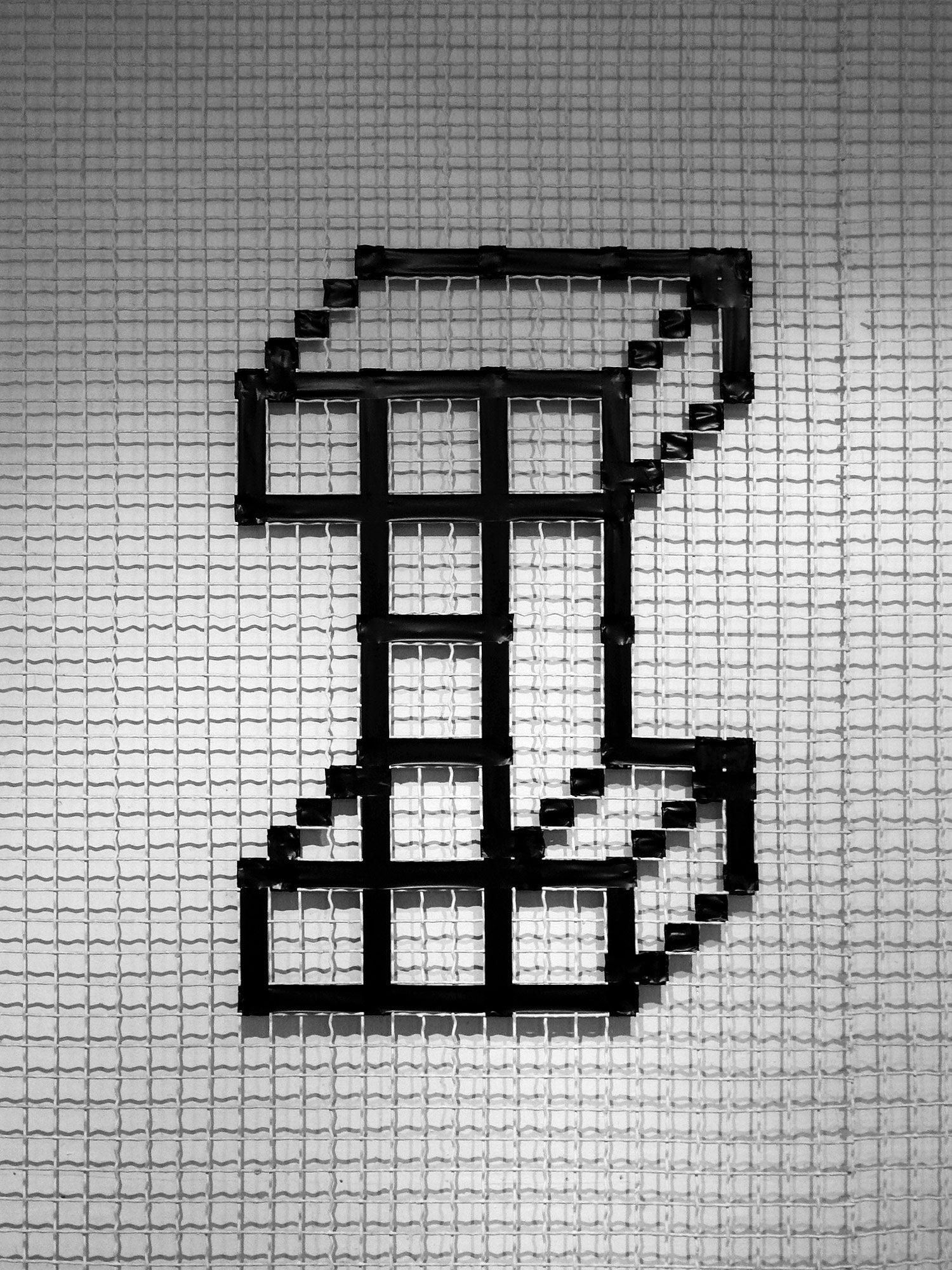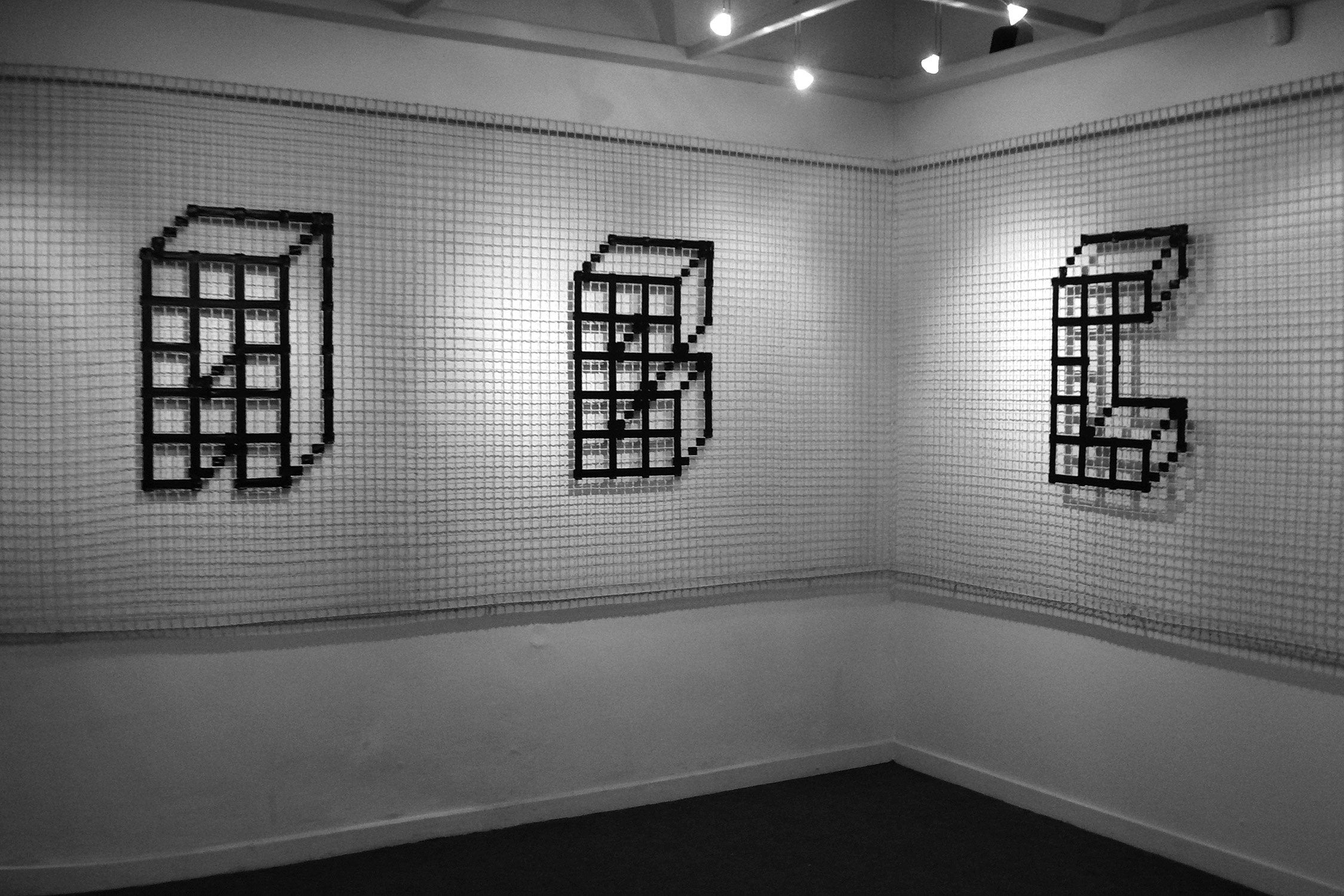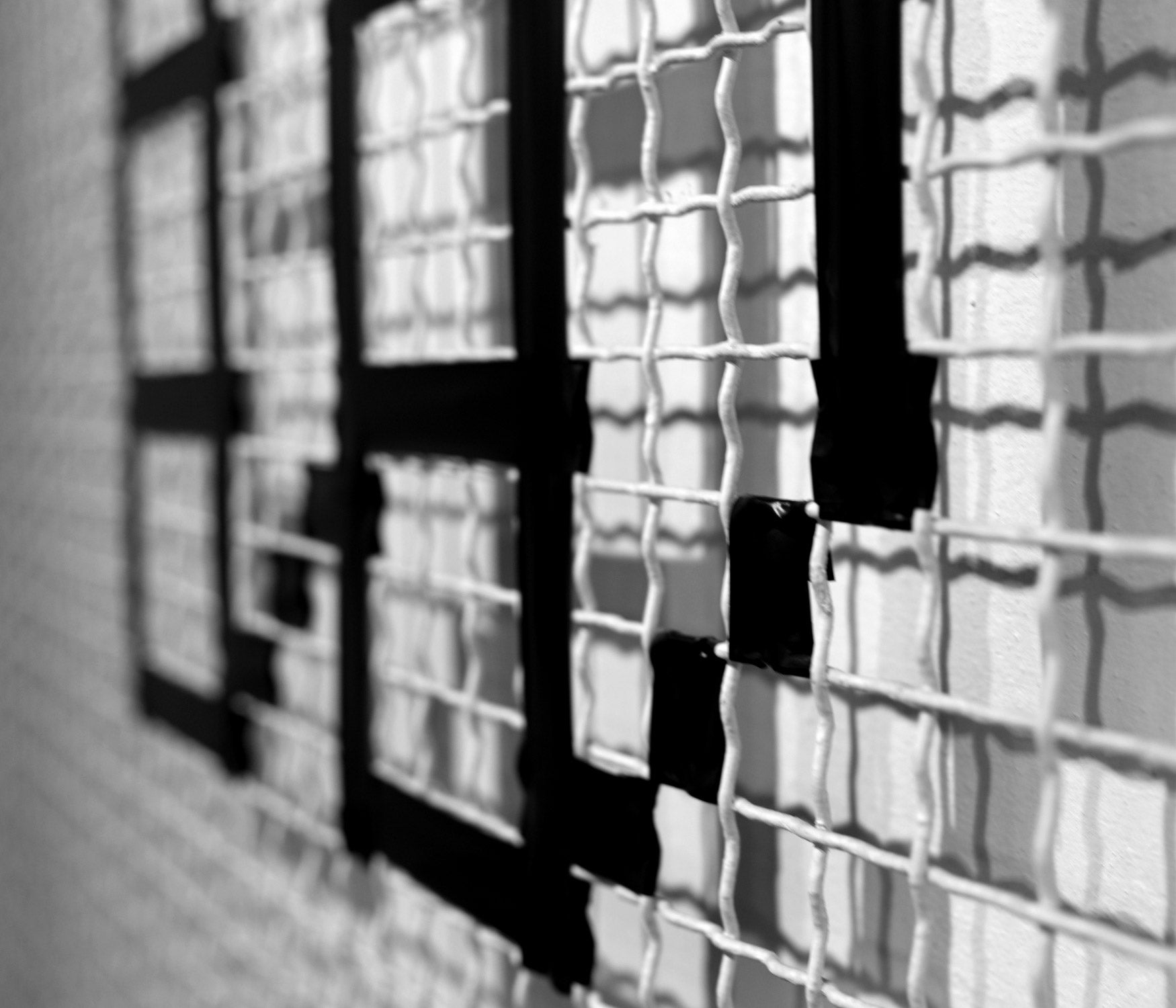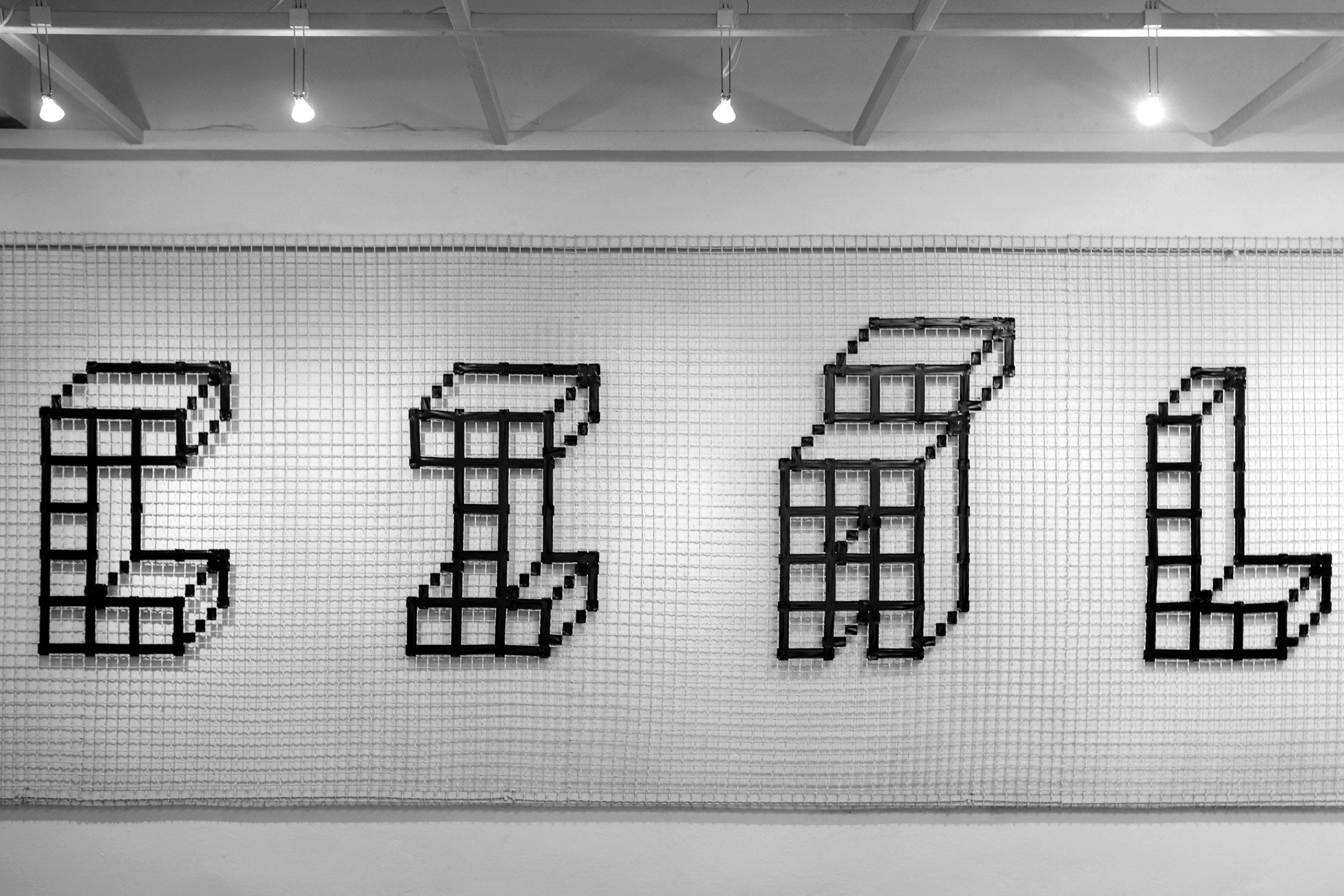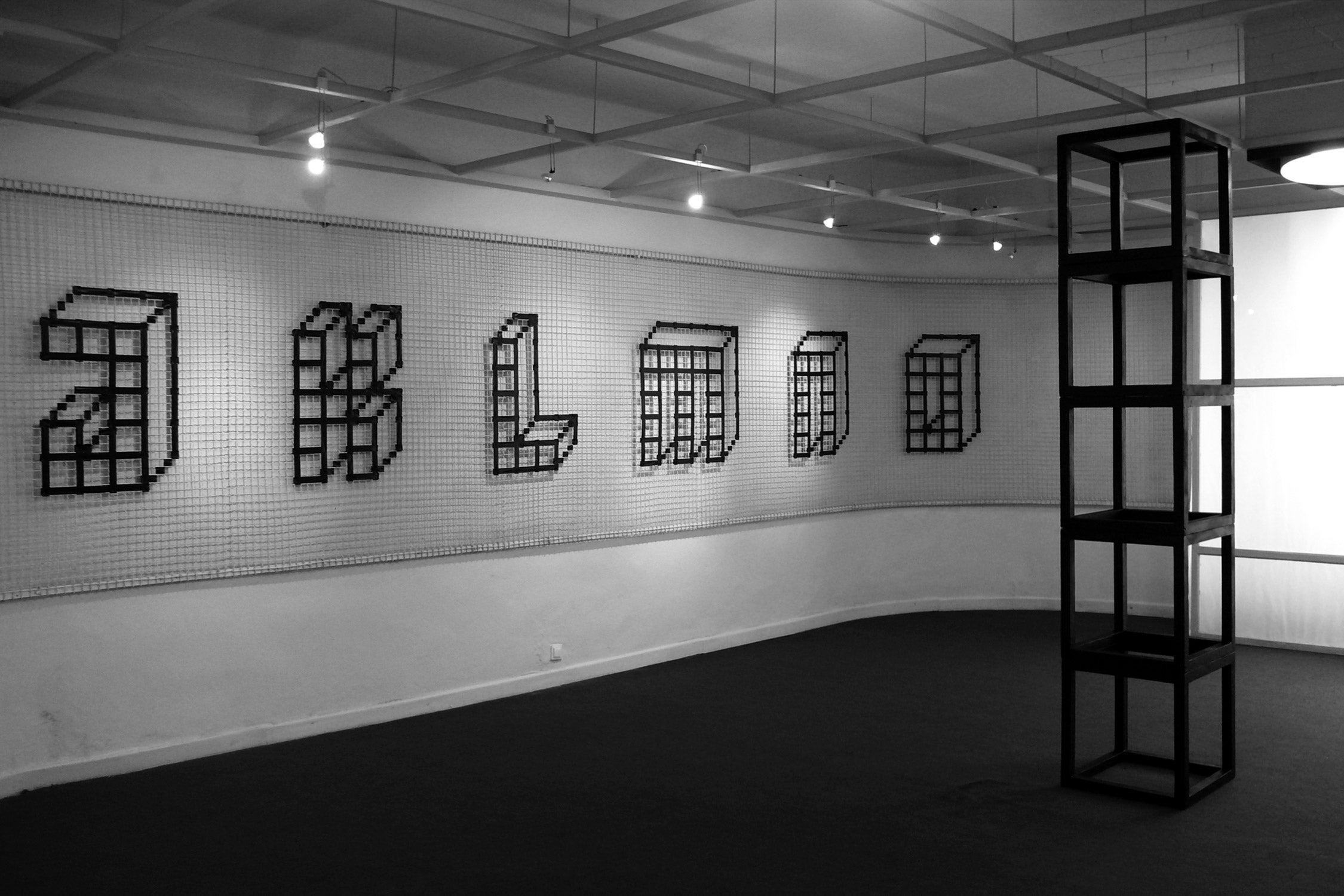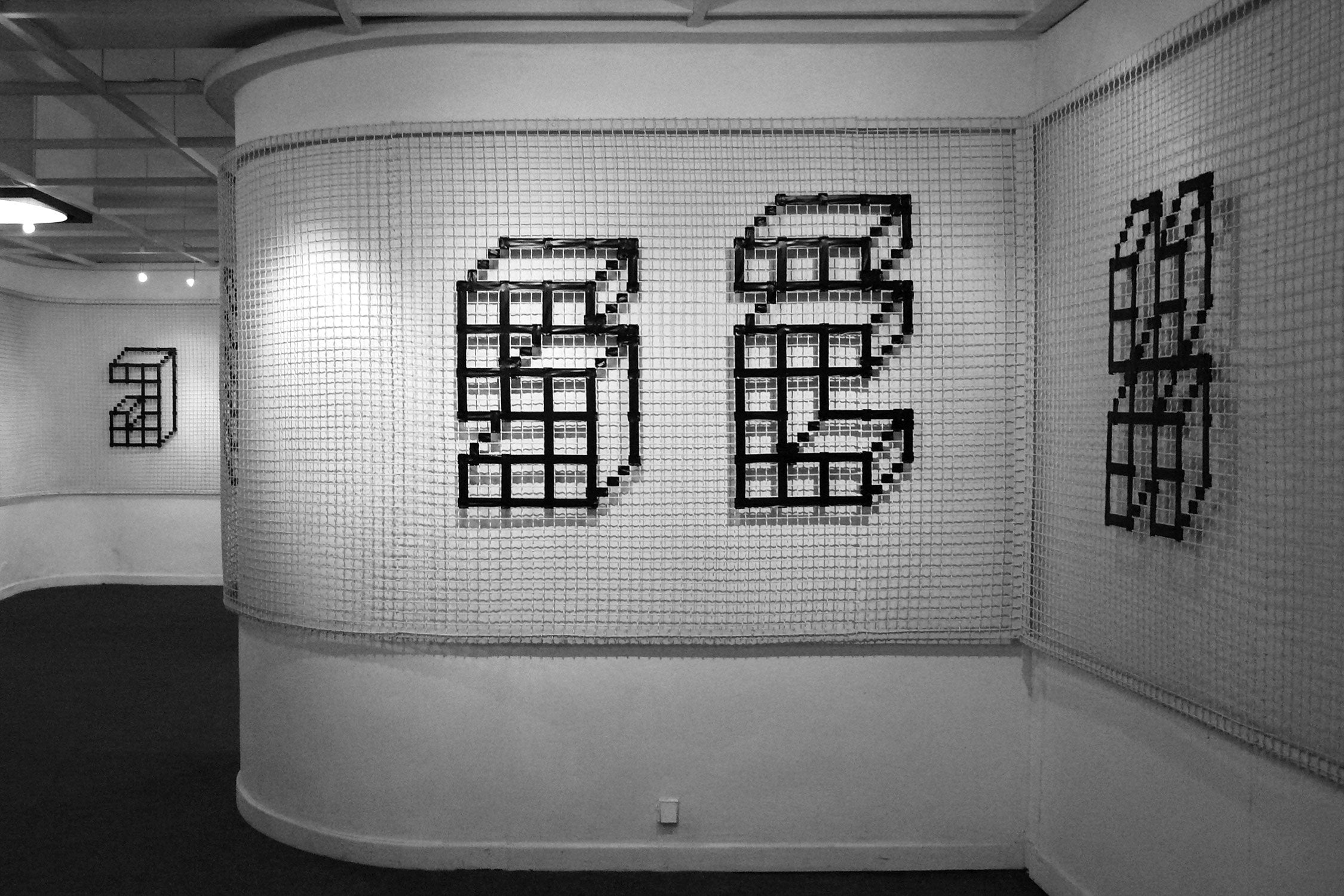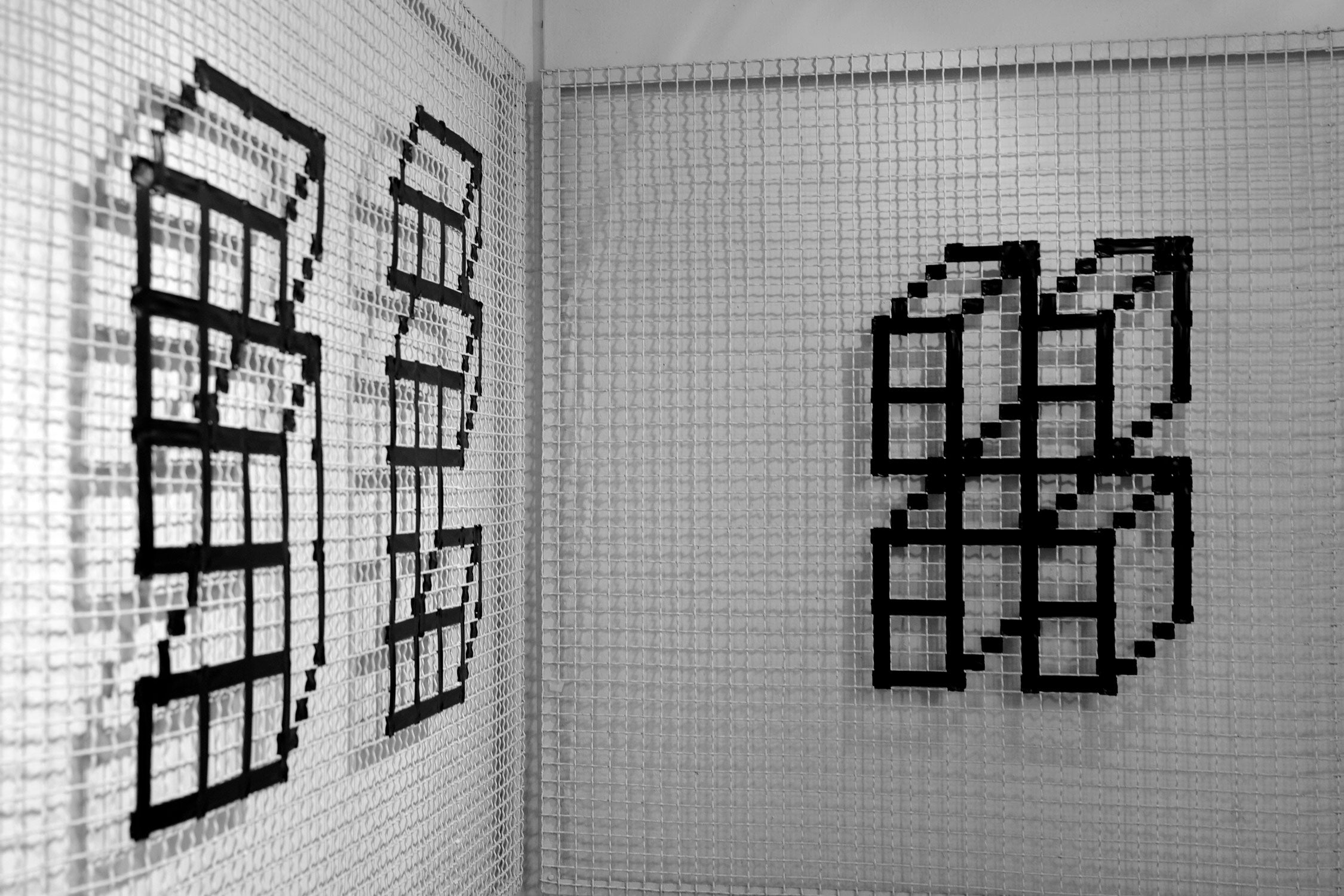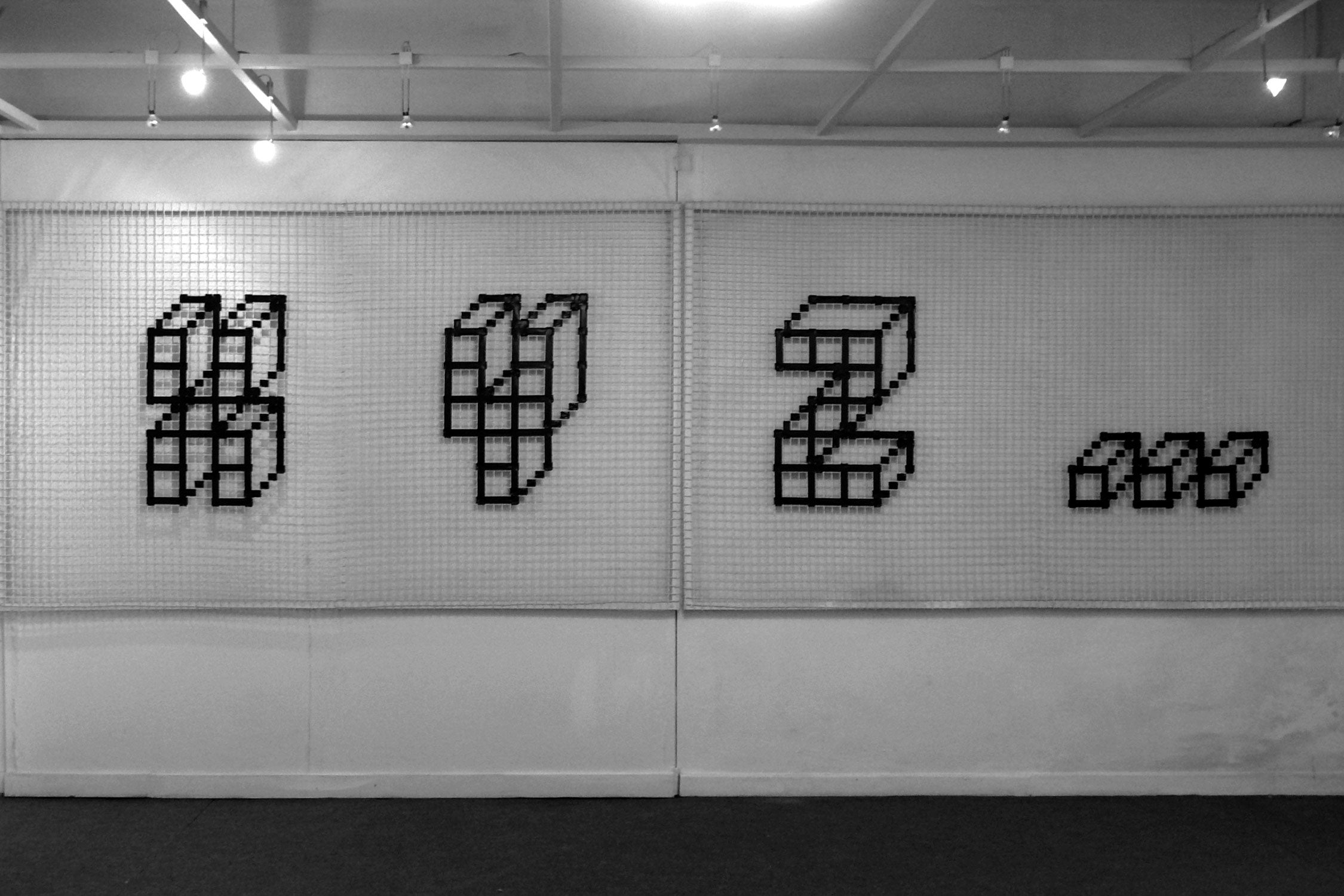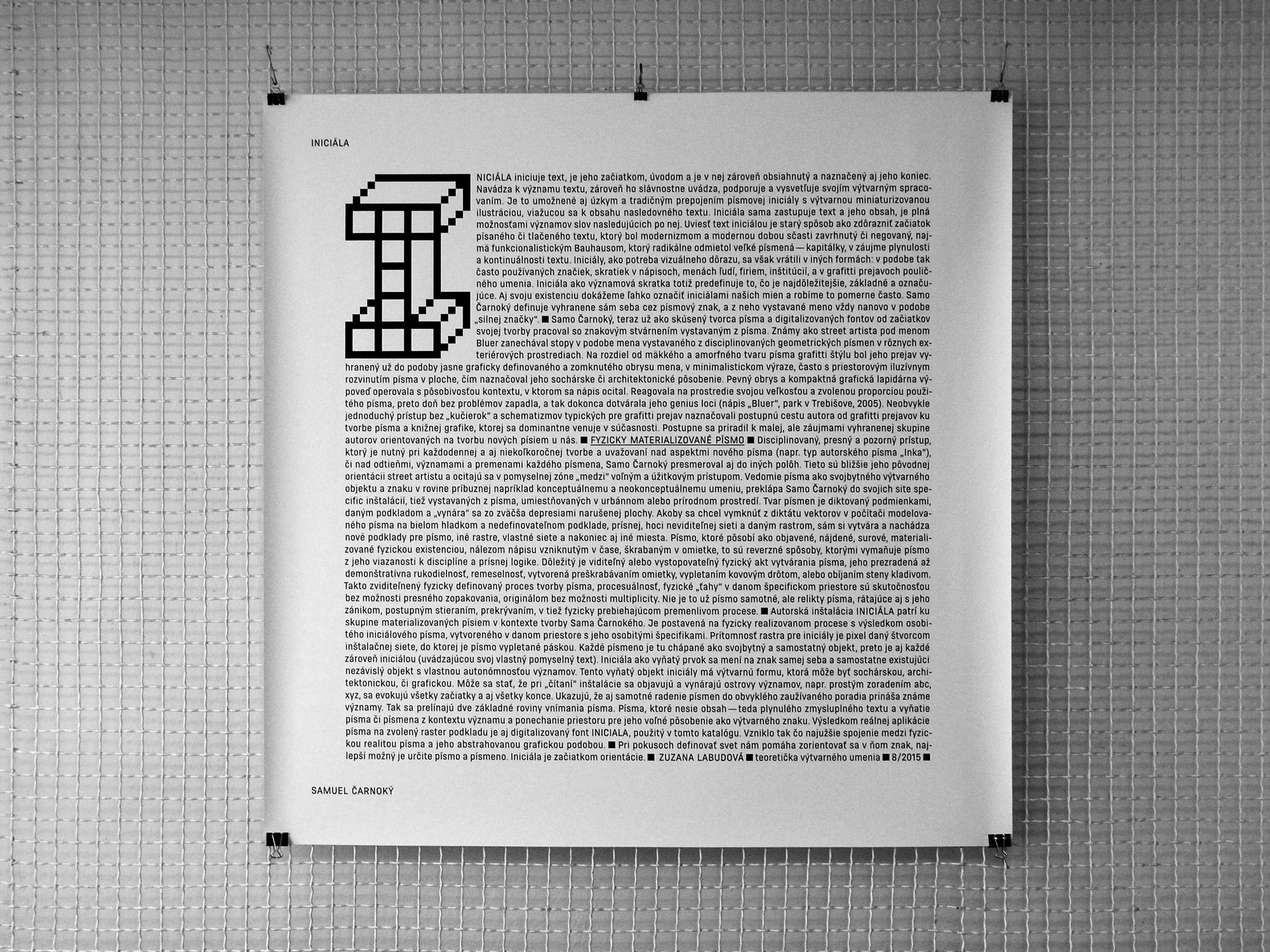
Iniciála
At the beginning, there is the Initial... a materialized typeface in the form of a site-specific installation — metal mesh used for picture hanging has become a net into which each letter is weaved, pixel by pixel, using insulating tape. In this way, the specific space generates its own font, as a reminder to the beginnings of 8-bit graphics in the times the exhibition hall was being built. The word is being decomposed to individual characters — possible initials of other words — and the characters in turn are being decomposed into black pixels, which are the final stage of zooming in any content. The character is just an initial, the first letter, followed by an endless (con)text of space.